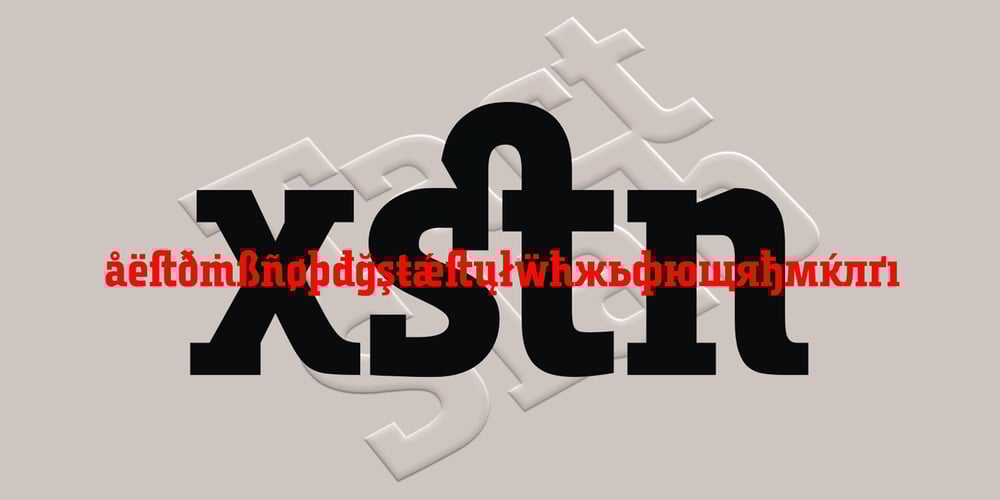
Tact Slab
Tact Slab font
Tact Slab Font Family was designed by published by Pesic. Tact Slab contains 1 styles and family package options. Tact Slab is geometrically slab serif font, black and condensed looks glyphs, with an alternative glyph set to improve its use in different graphic contexts. Tact Slab is compatible with the sans serif font Tact. It is suitable for use in the fields of science, art, architecture, urban planning, techniques, electronics, advertising, futuristic themes, sport, film, computers, phones, video games, magazines… Contains all Latin and Cyrillic glyphs.